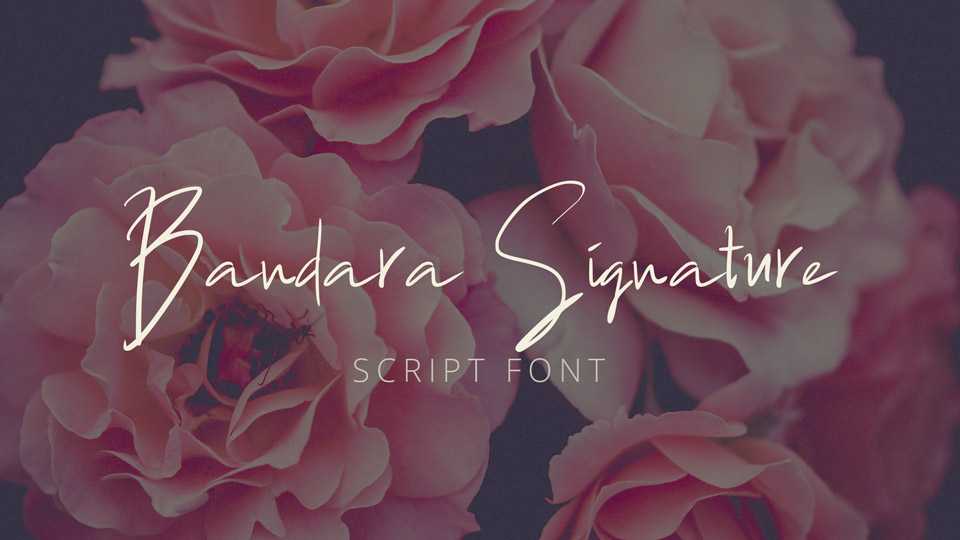
Download Bandara Signature font, a natural handwritten script that looks stylish for any awesome projects that need handwriting taste. Bandara Signature is great for personal branding, cards, letters, photography watermarks, social media and more.